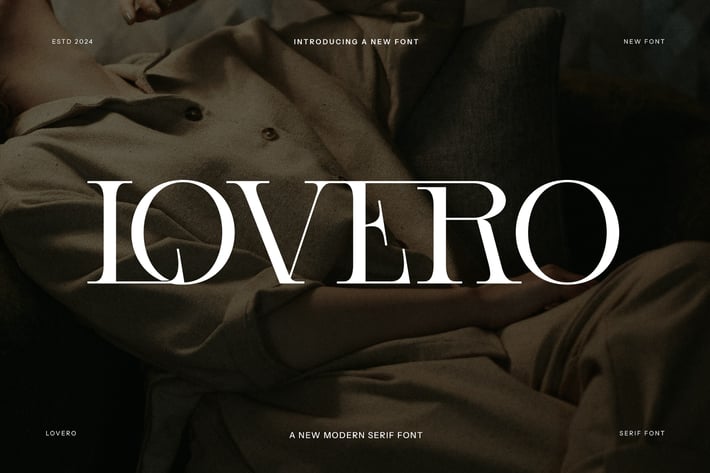
Lovero Modern Serif Font
Lovero Modern Serif Typeface inspired by the famous minimalist logo perfect for the purposes of designing templates, brochures, videos, advertising branding, logos, invitation, layout design, elegant crafting, beauty design and other